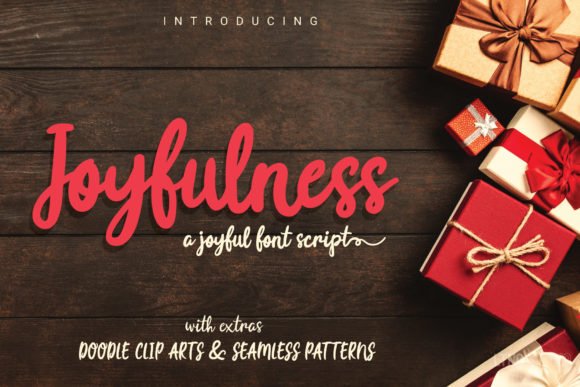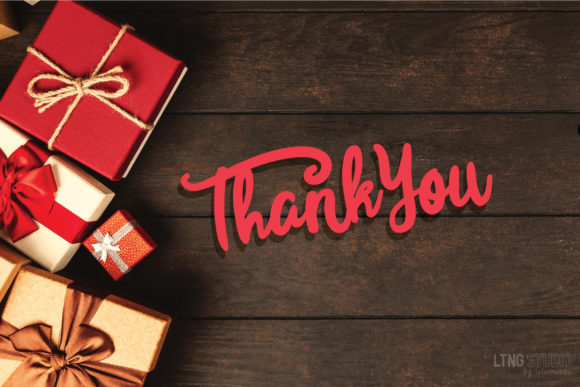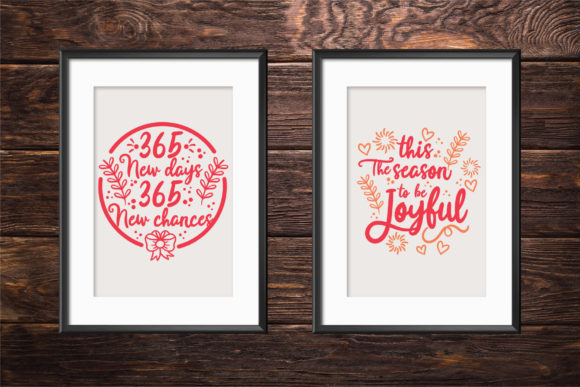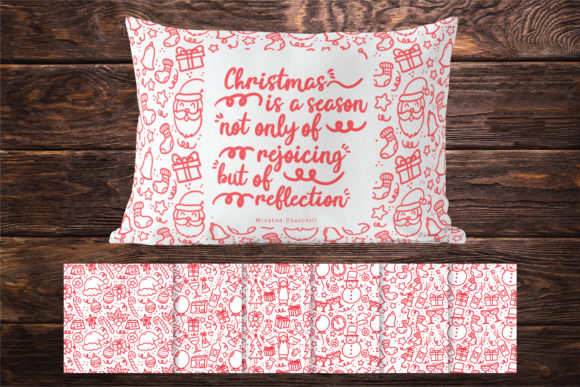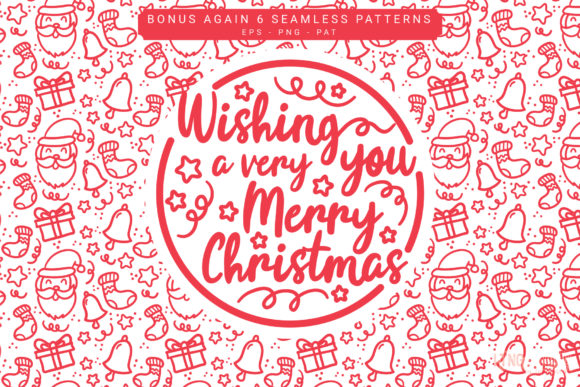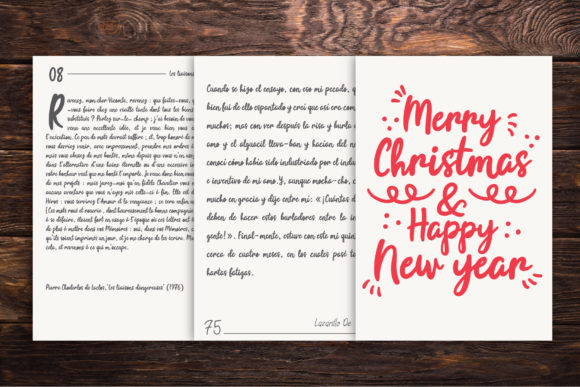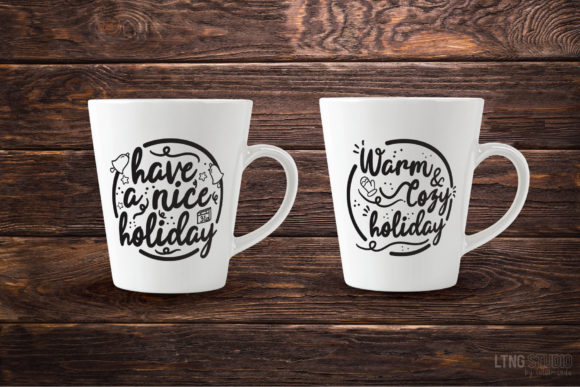
Spread Holiday Cheer with the Joyfulness Script Font
As the holiday season approaches, I find myself rummaging through my design stash, searching for the perfect font to capture the essence of the season. It’s that one moment when creativity strikes, and I envision a design that screams joy and festivity. And, that’s exactly when I stumbled upon the Joyfulness Script Font – a perfect match for my holiday design dreams!
This beautiful script font is designed to evoke feelings of warmth and happiness, making it a perfect addition to any holiday design project. With three weights – regular, italic, and semi light – and a bonus font with elements to spice up your design, the Joyfulness Script Font offers endless possibilities for designers. Plus, the included doodle clip-art and seamless patterns are the icing on the cake, allowing you to create unique and eye-catching designs that exude joyfulness.
Key Features of Joyfulness Script Font
- Font Style: Handwritten, Script
- Unique Characteristics: This font features a playful and whimsical feel, with subtle irregularities and variations that give it a natural, handwritten look
Designer Review: Joyfulness Script Font
As a designer, I was excited to dive into the Joyfulness Script Font and see if it lived up to its promise of bringing a touch of whimsy and joy to my designs. Here’s my honest take.
- The Joyfulness Script Font is undeniably beautiful. Its flowing lines and organic feel are perfect for adding a touch of elegance and sophistication to any design.
- The font is highly customizable, with a wide range of sizes, colors, and effects available to help you get the look you want.
- The font is also highly legible, making it a great choice for body text or headlines where readability is key.
- The font can be a bit over-the-top in some cases. Its whimsical nature may not be suitable for more serious or formal designs.
- The font may not be as versatile as some other script fonts on the market. While it’s great for certain projects, it may not be the best choice for others.
Overall, I was impressed with the Joyfulness Script Font. While it may not be the perfect choice for every design, it’s a beautiful and highly customizable font that’s sure to bring a smile to your face. With a little creativity and restraint, it’s a great addition to any designer’s toolkit.
Tips for Getting the Most Out of the Joyfulness Script Font
Use the Joyfulness Script font for titles, headings, and quotes to add a touch of elegance and sophistication to your designs.
Experiment with different font sizes and styles to create visual interest and hierarchy.
Pair the Joyfulness Script font with other elegant fonts or scripts to create a unique and eye-catching look.
The Joyfulness Script font is perfect for:
Special occasion cards and gifts.
Brand logos and typography.
Wedding and event signage.